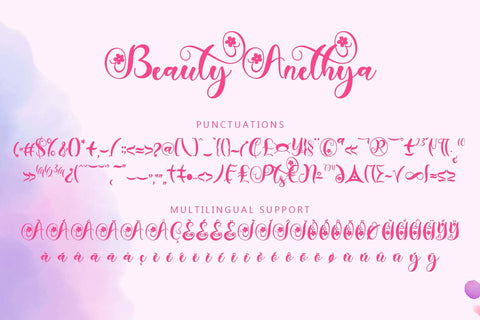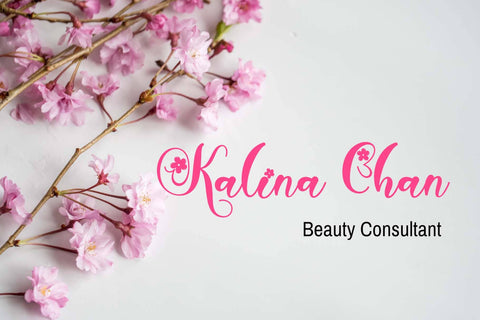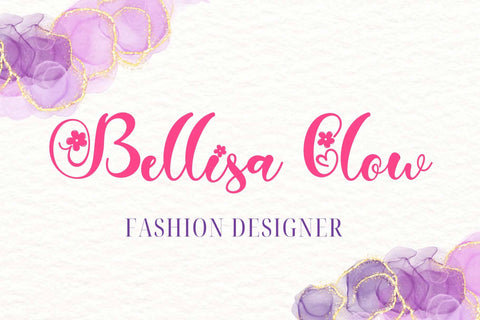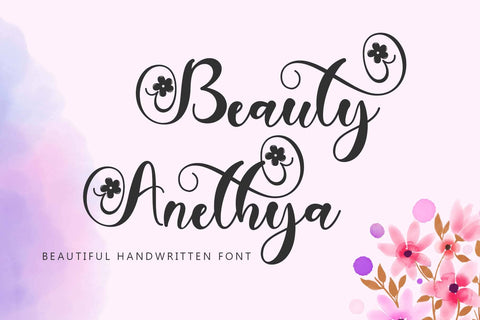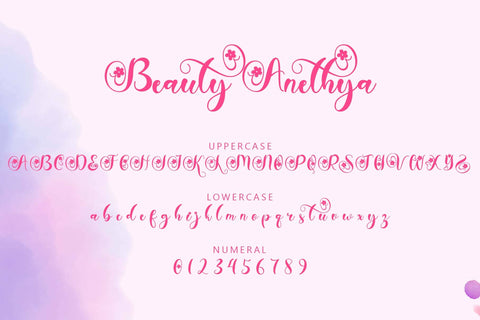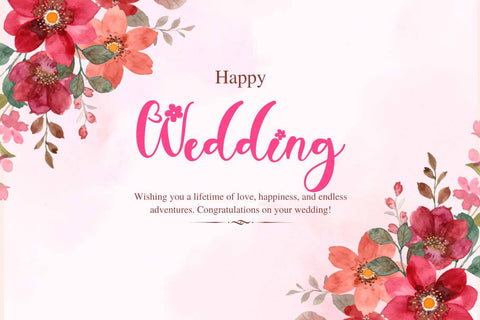
Beauty Anethya
"Beauty Anethya" is a beautiful and elegant handwritten font. This font is equipped with uppercase, lowercase, numerals, punctuations and multilingual support. It is very suitable for weddings, business branding, stickers, spring, summer, holidays, invitations, banners, mother's day and others.